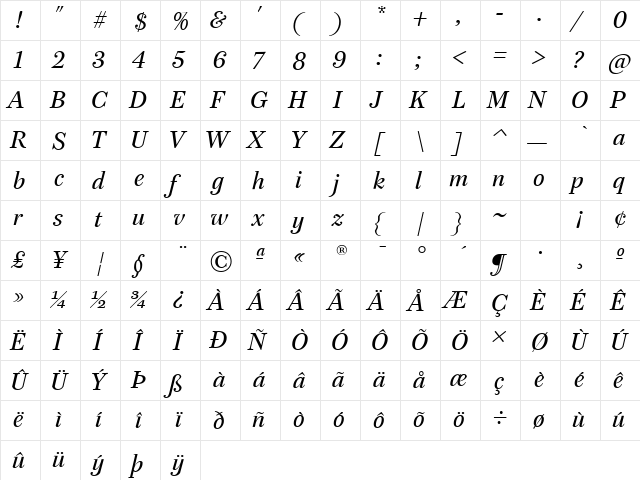
Paperback 48 TT Italic
| Foundry | House Industries |
| Designer | John Downer |
Design Context for Paperback 48 TT Typeface
Paperback 48 TT offers clean, dependable letterforms without strong stylistic allegiance, making it a practical choice for designers who need flexibility. The slanted form adds forward momentum and visual energy.
Pro Tip: Try Paperback 48 TT for annotation and caption copy alongside an upright companion — the contrast in angle creates a dynamic but ordered typographic system.